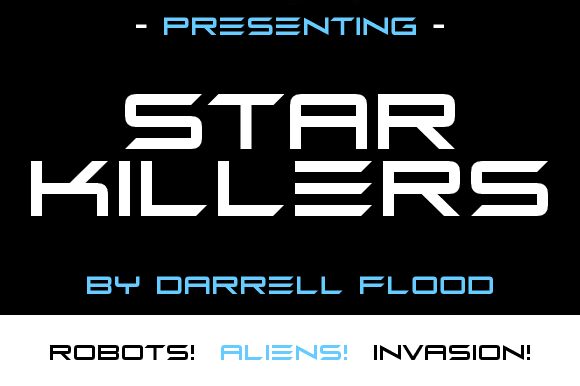
Star Killers Italic
Star Killers Italic, from the Star Killers font family, is a creation of Hawtpixel that truly stands out with its sleek, futuristic style. This display typeface features a semi-light weight paired with an extra-expanded width that stretches across the visual field with confidence and modern flair. The dynamic italics add movement and energy to the typeface, making it perfect for projects that require a touch of the avant-garde.
Visually, Star Killers Italic boasts sharp angles and clean lines that suggest speed and technology, echoing aesthetics found in science fiction and cutting-edge design work. Its extended characters create a sense of grandeur and space-age elegance, making it ideal for titles, headers, or any application where you want your text to make an impactful statement.
Whether you're designing for digital media or print, creating content for games or branding futuristic products or events—Star Killers Italic is versatile enough to propel your project into a new dimension. Embrace its unique character in your next creative endeavor and watch as it transforms your designs with its interstellar charm.